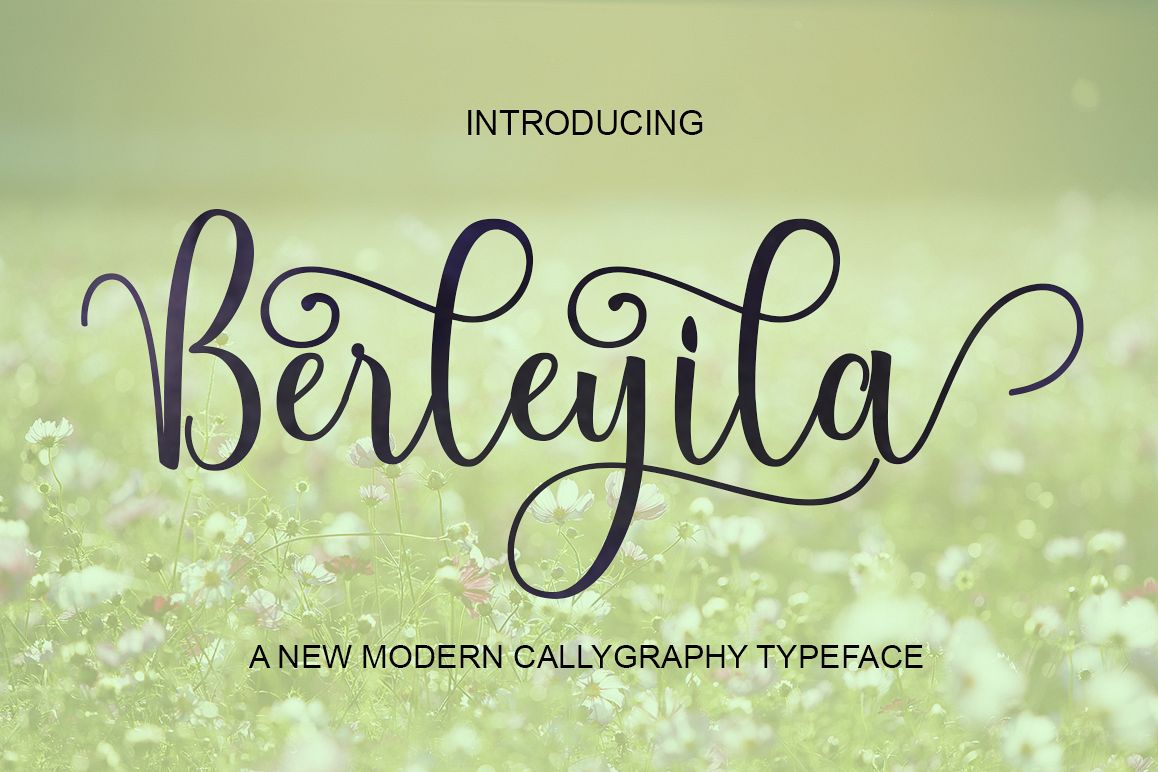
Berleyila
BERLEYILA Modern Calligraphy. This font was designed by handwriting, and it has a modern and unique forms of calligraphy, the writing style is very natural.
The Features of this fonts is;
* Standart ligatures
* Stylistic Alternates
* Contextual Alternates
* Stylistic sets
Can be used for various purposes.such as headings, logos, wedding invitation, t-shirt, letterhead, signage, lable, news, posters, badges etc. To enable the OpenType Stylistic alternates, you need a program that supports OpenType features such as Adobe Illustrator CS, Adobe Indesign & CorelDraw X6-X7.